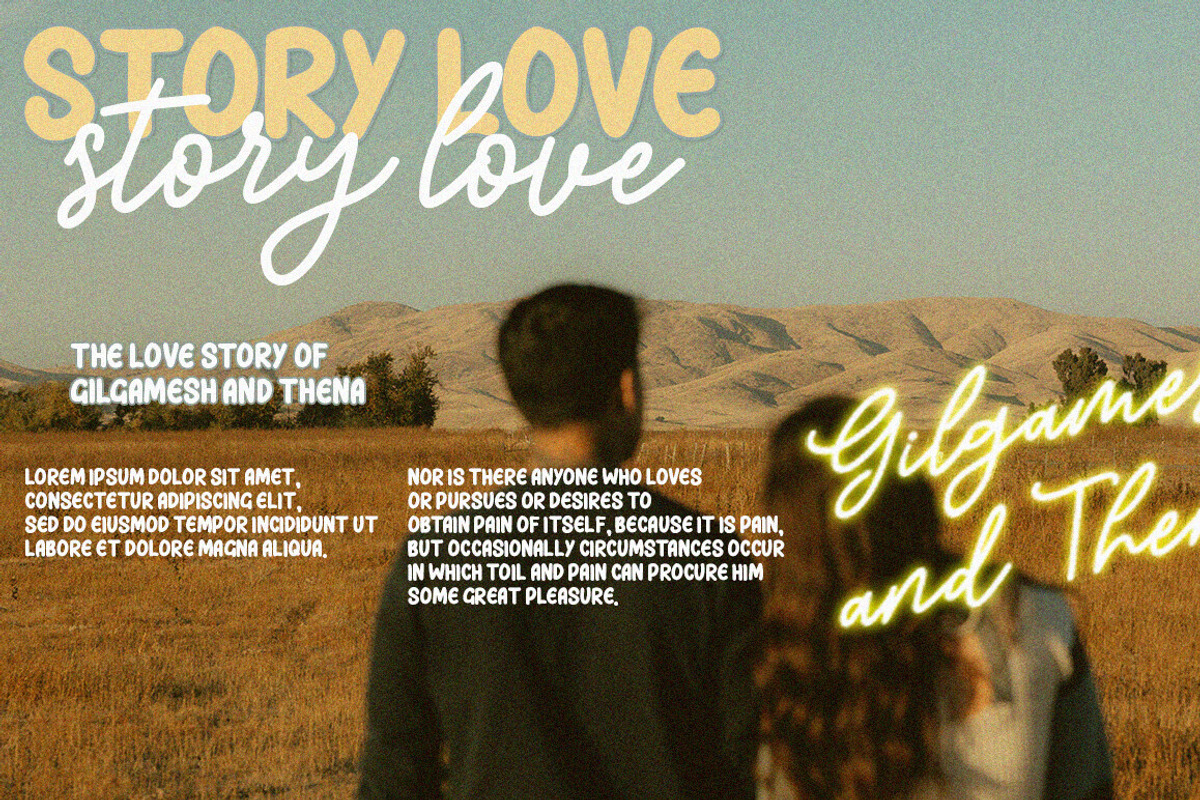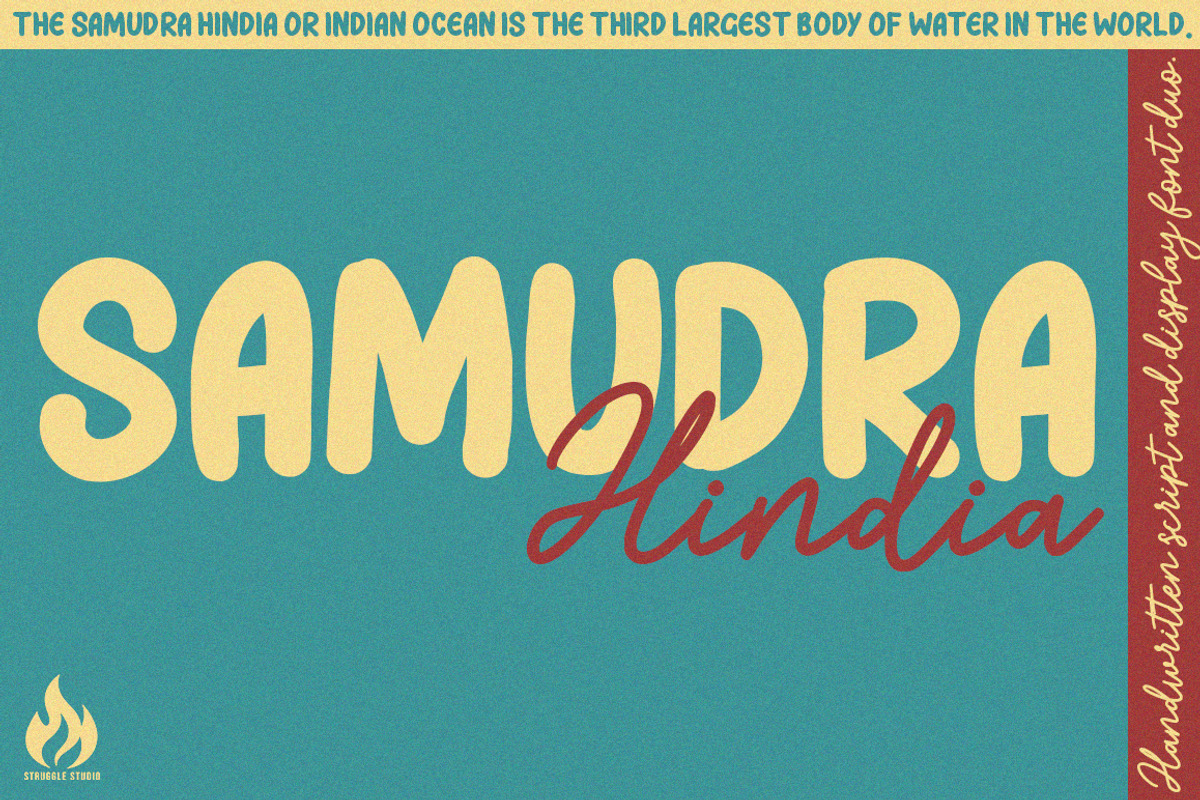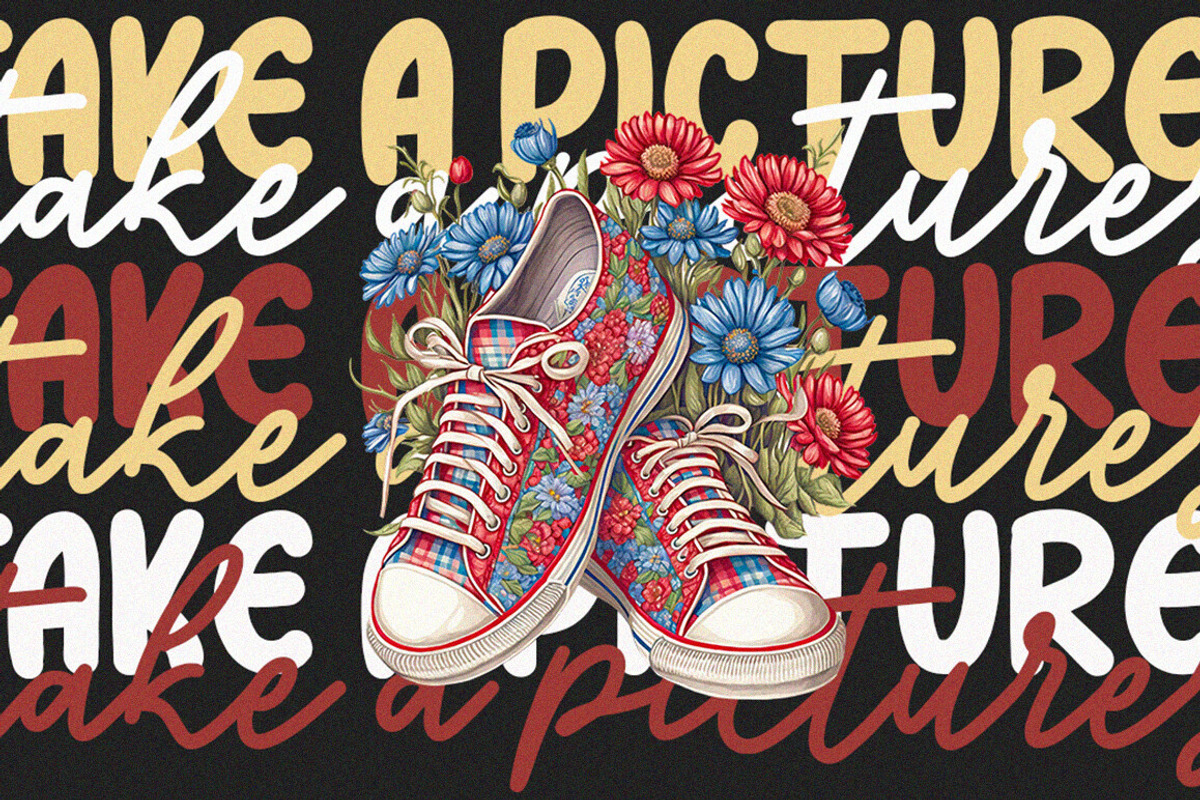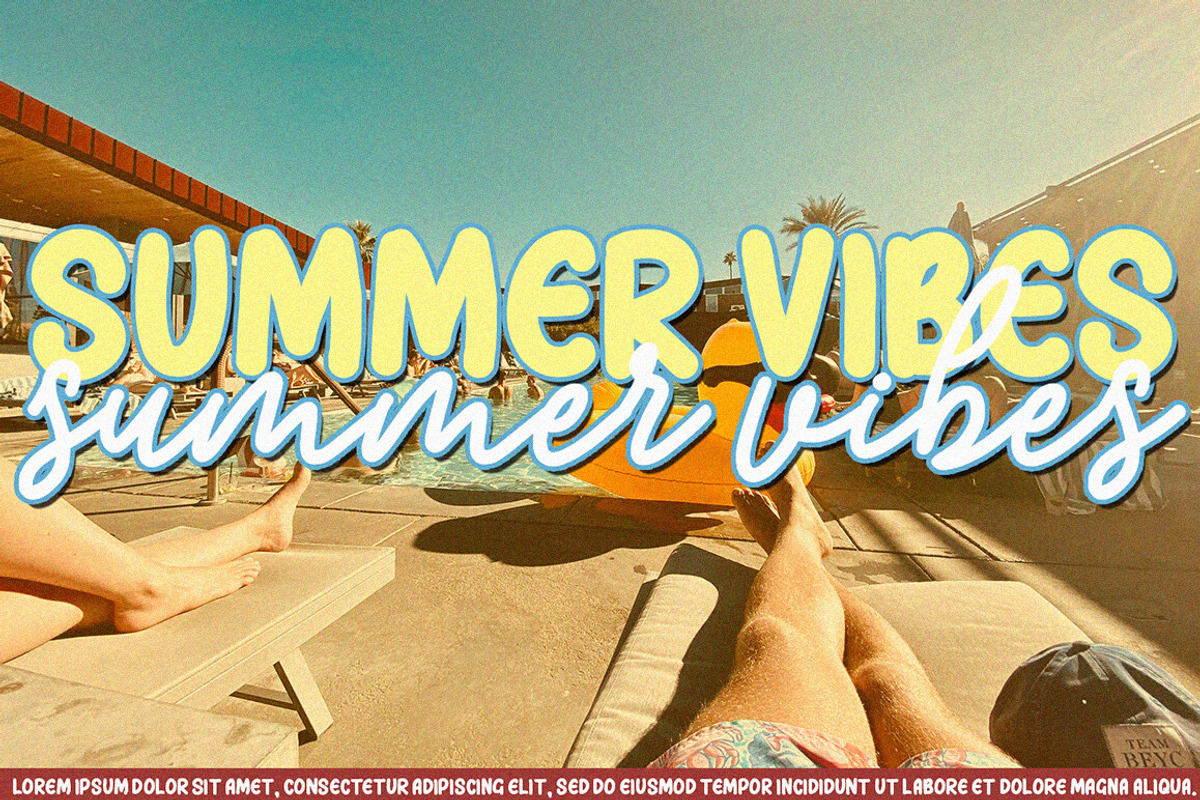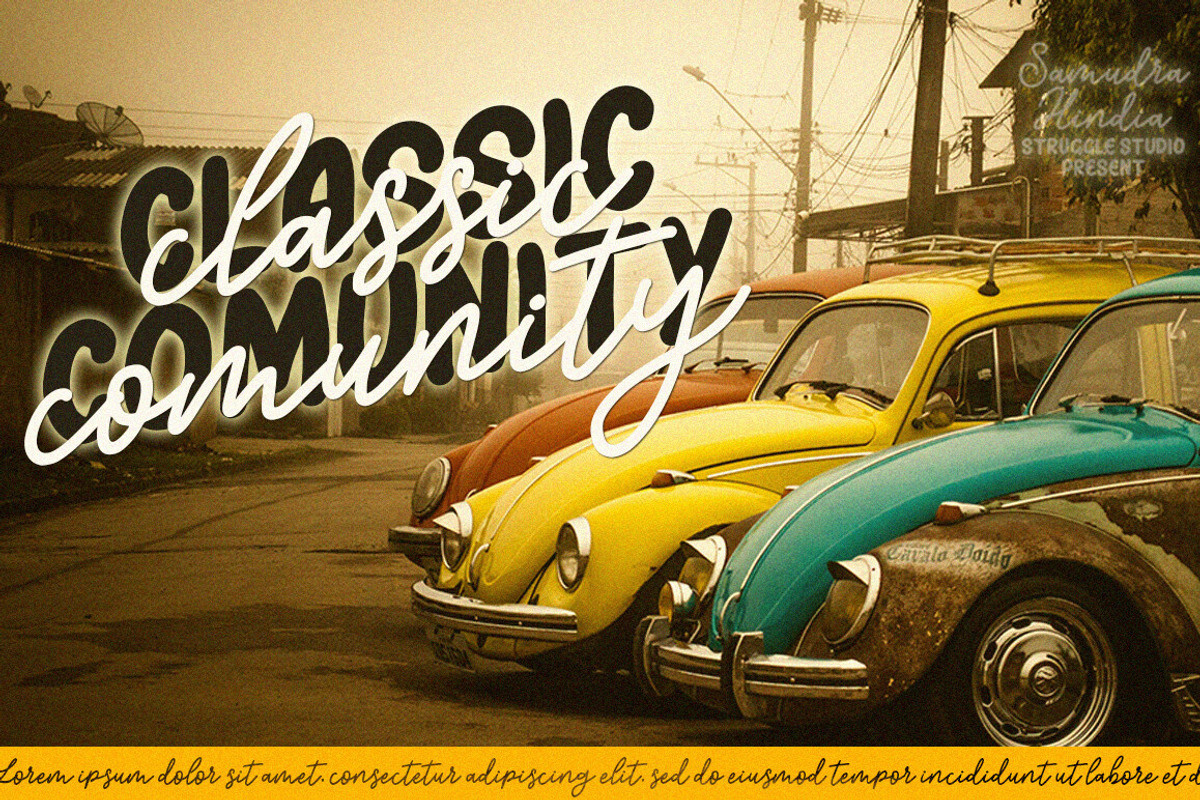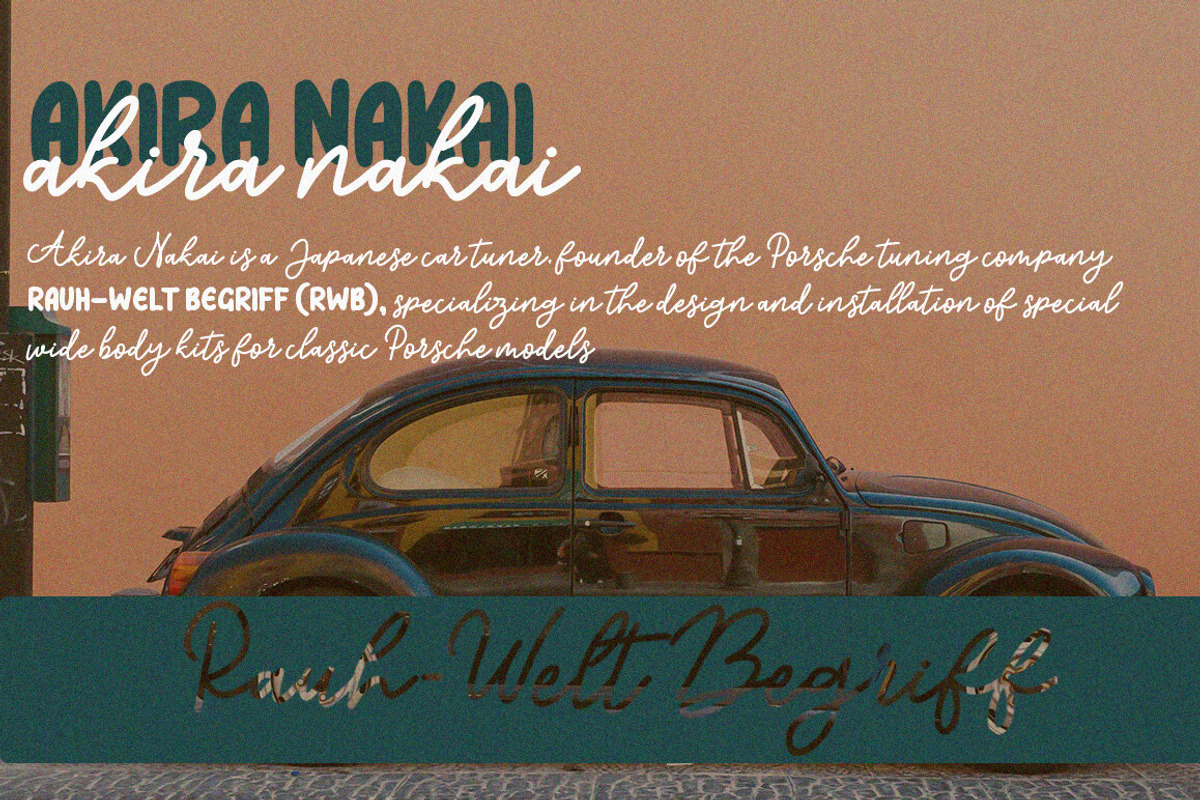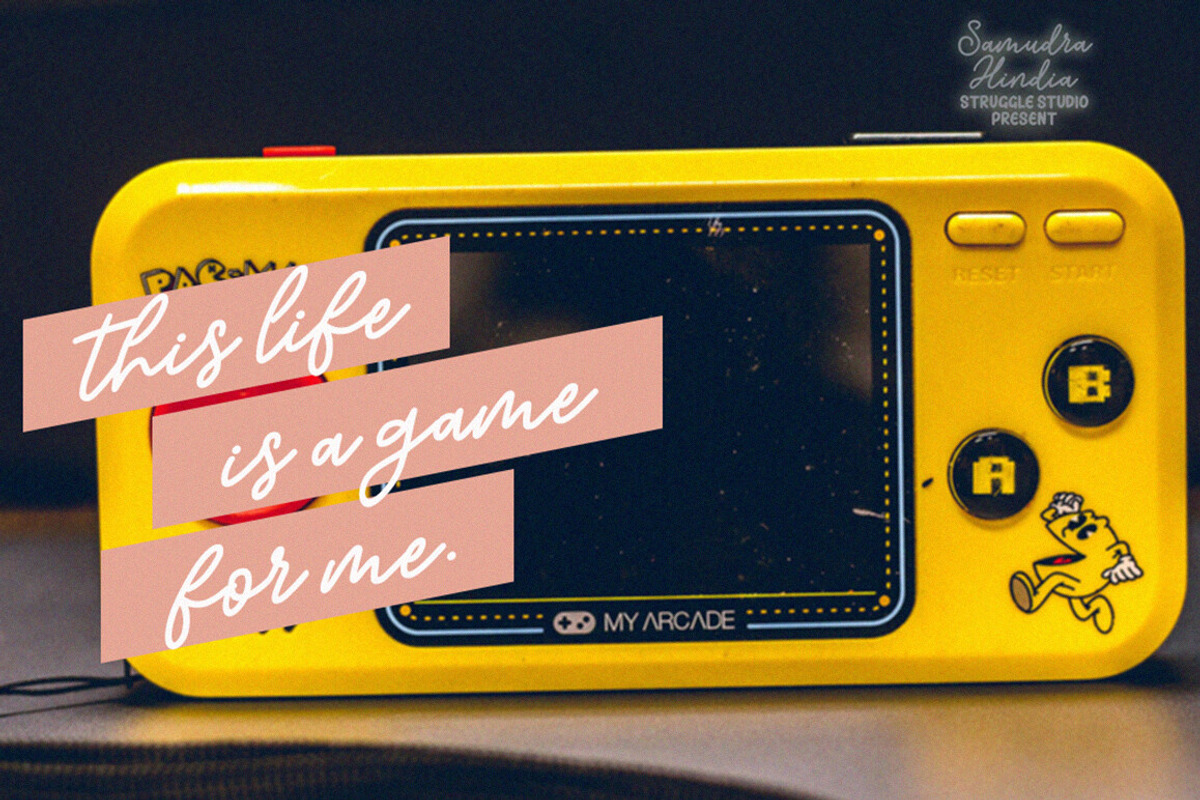
Samudra Hindia
Introducing Samudra Hindia – a harmonious Duo Font pairing the grace of Monoline with the invigorating presence of Display. Characterized by its vintage allure and gentle aesthetics, Samudra Hindia embodies a timeless statement. Its versatile presentation entices creative exploration in various fields and renders it an excellent choice for everything from unique branding approaches to evocative titles and bespoke stationery designs. Samudra Hindia is not just a font, it’s a soft whisper of the past meeting the vibrant pulse of the present.